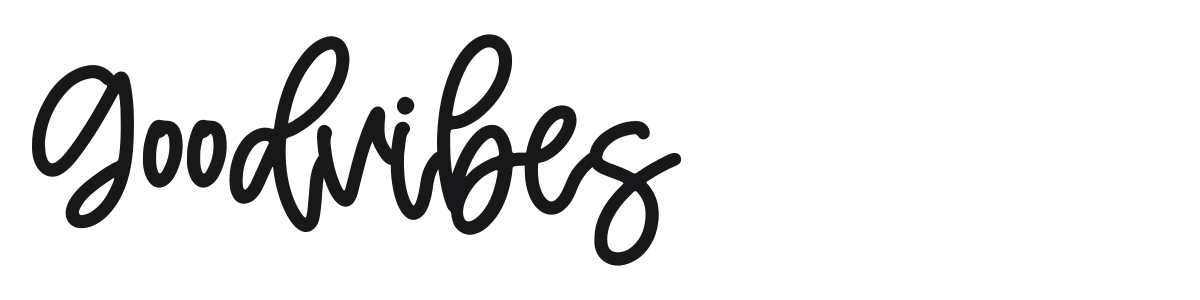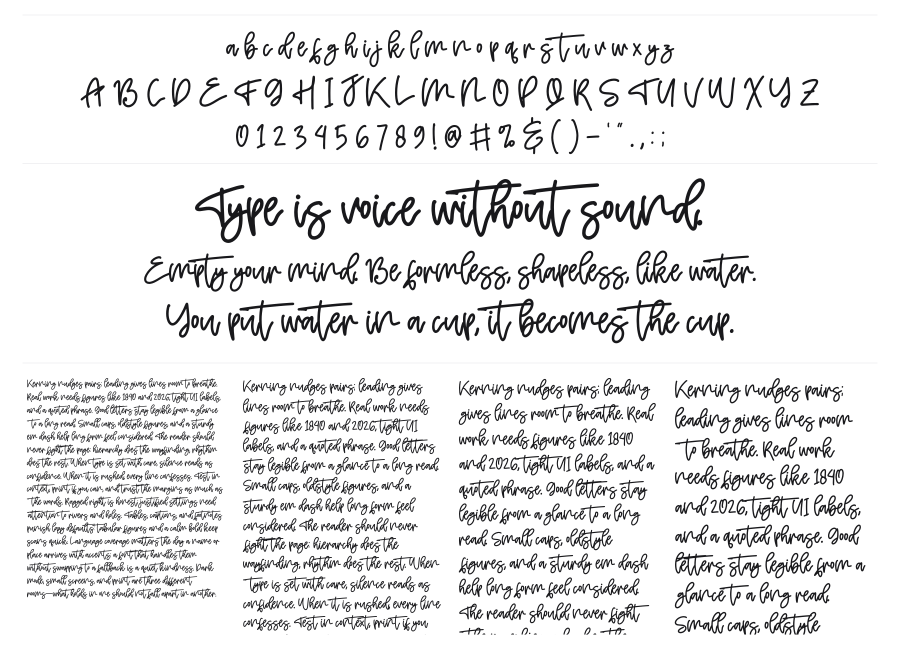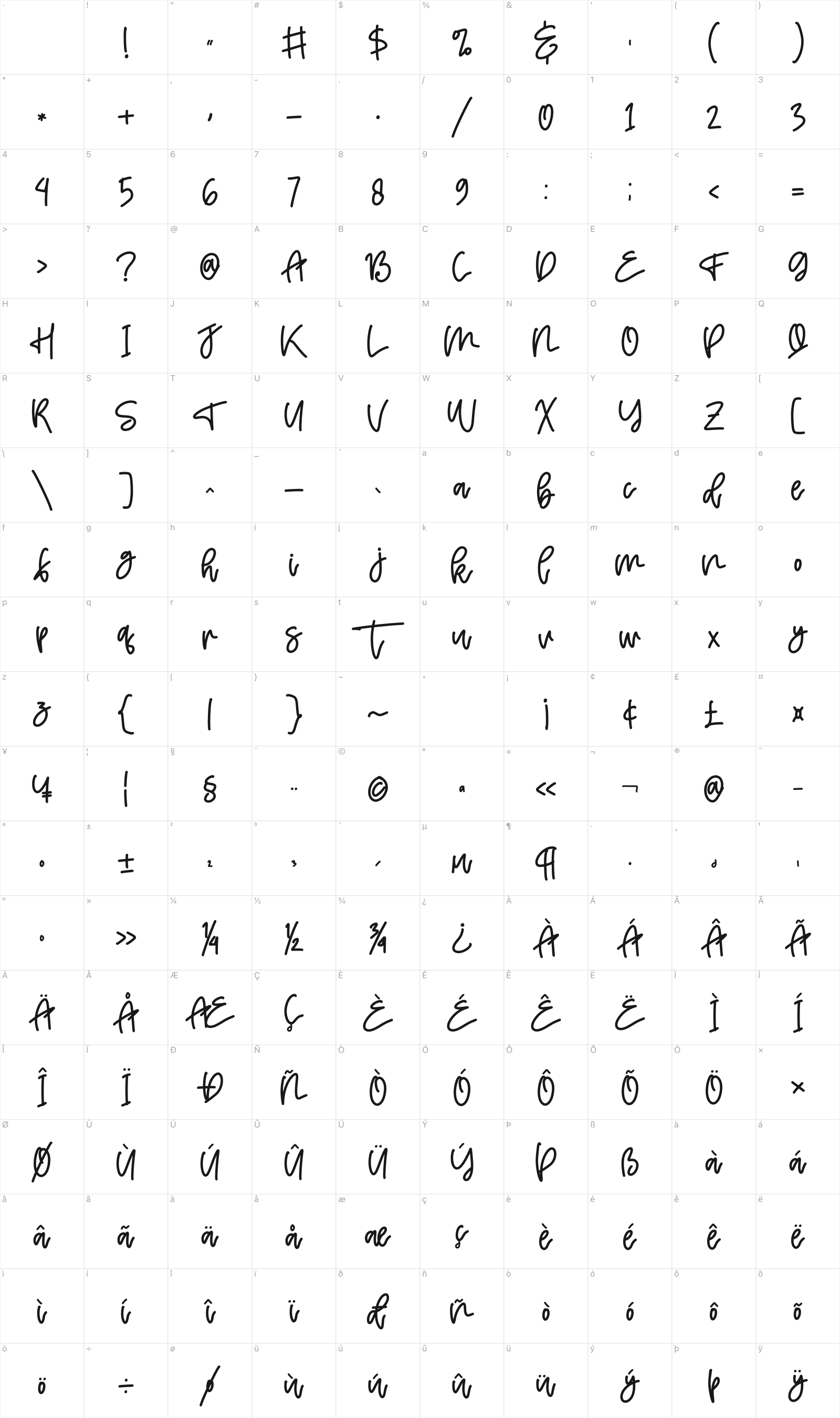
Goodvibes
Goodvibes is a casual connected script with the loose, flowing energy of a felt-tip signature. The rounded loops and gently bouncing baseline give it a relaxed, cheerful personality that works across branding, packaging, and social media graphics. It leans modern and unpretentious without trying too hard.